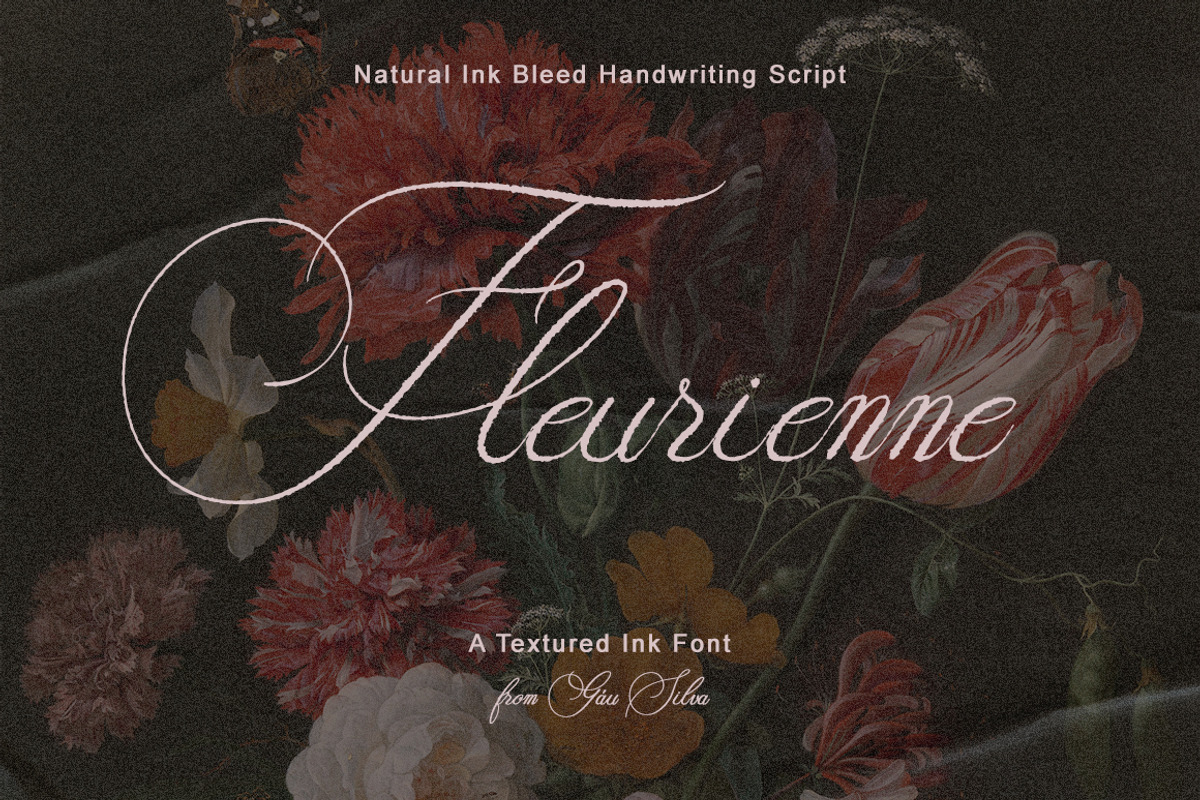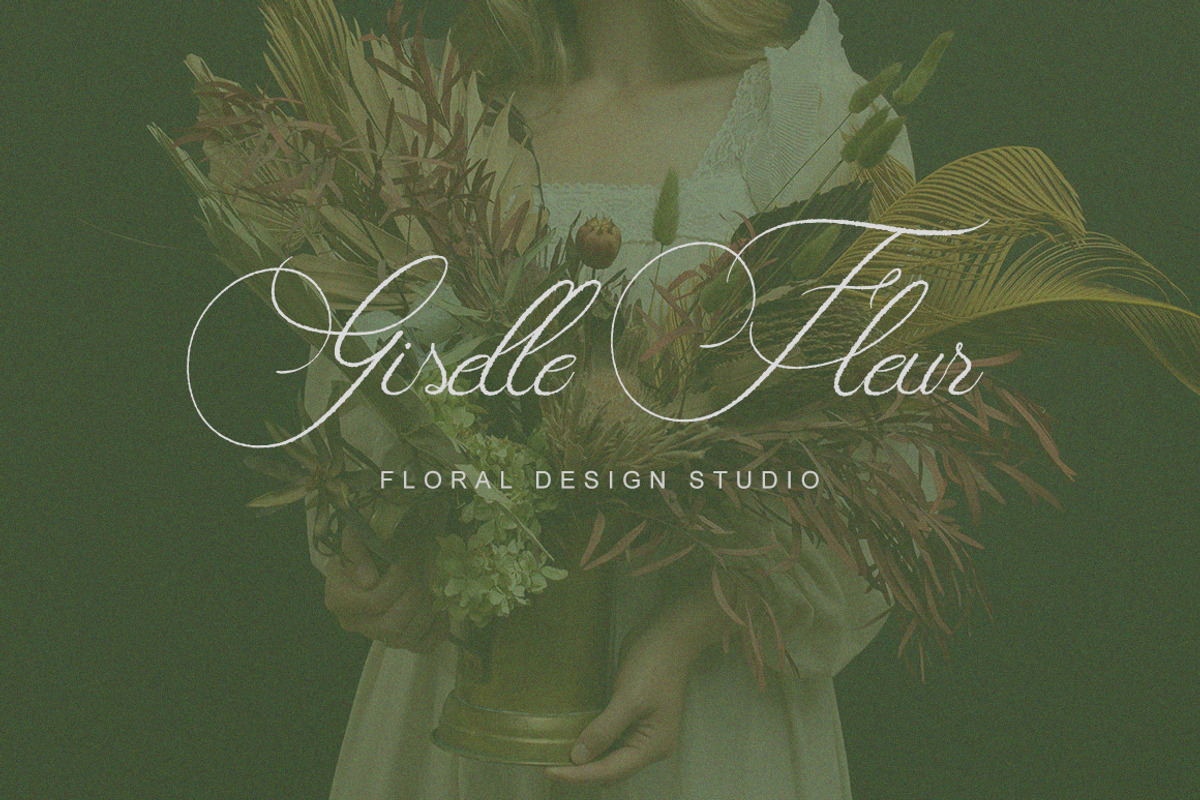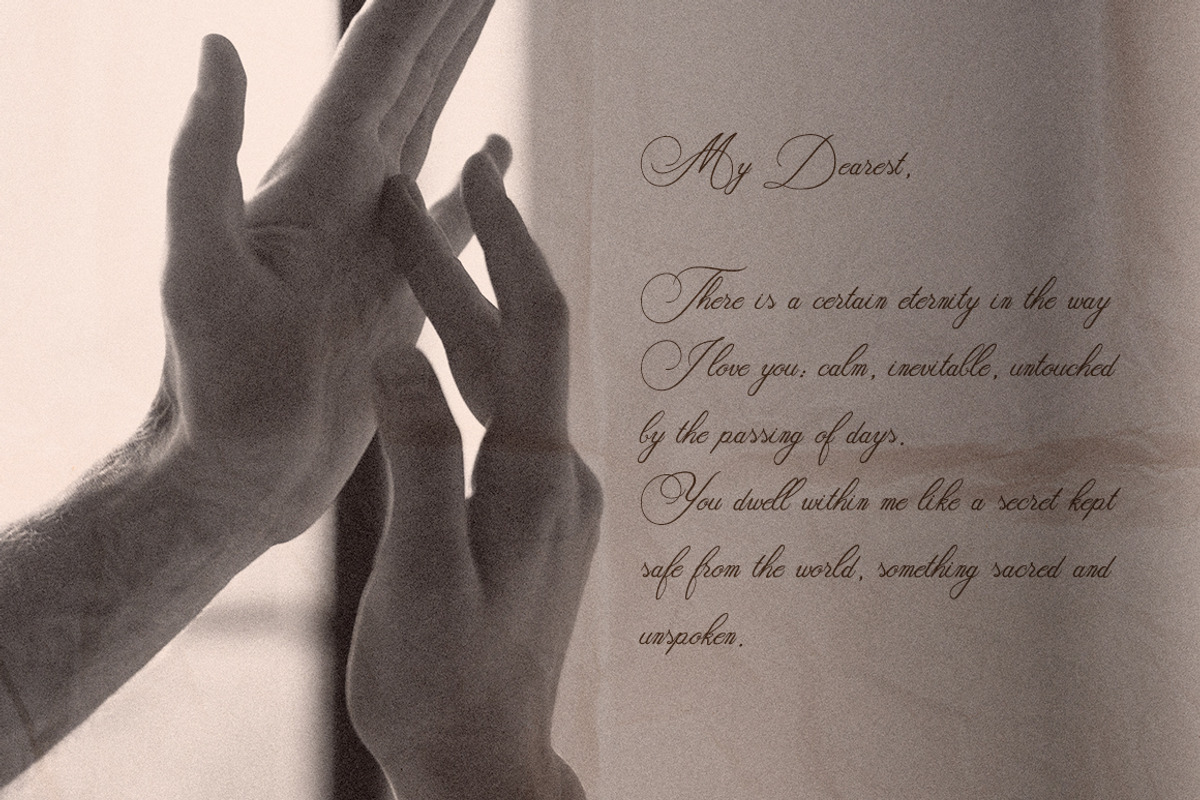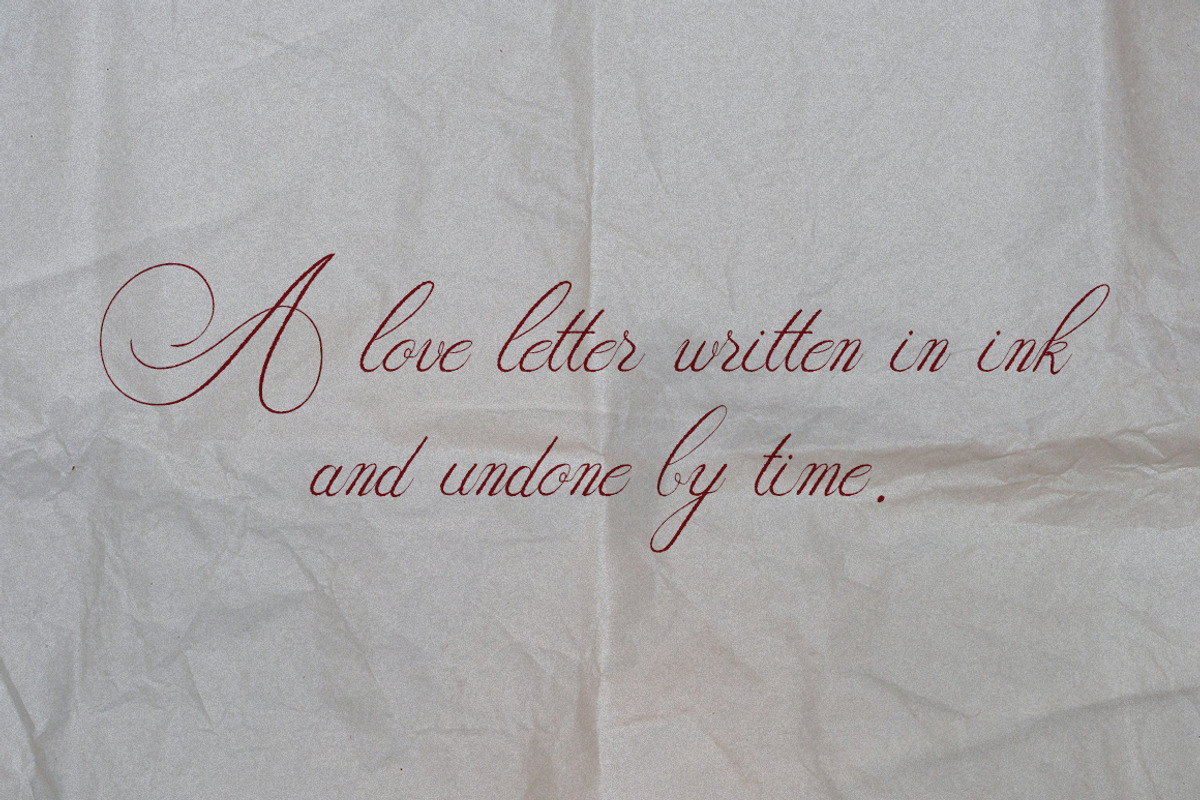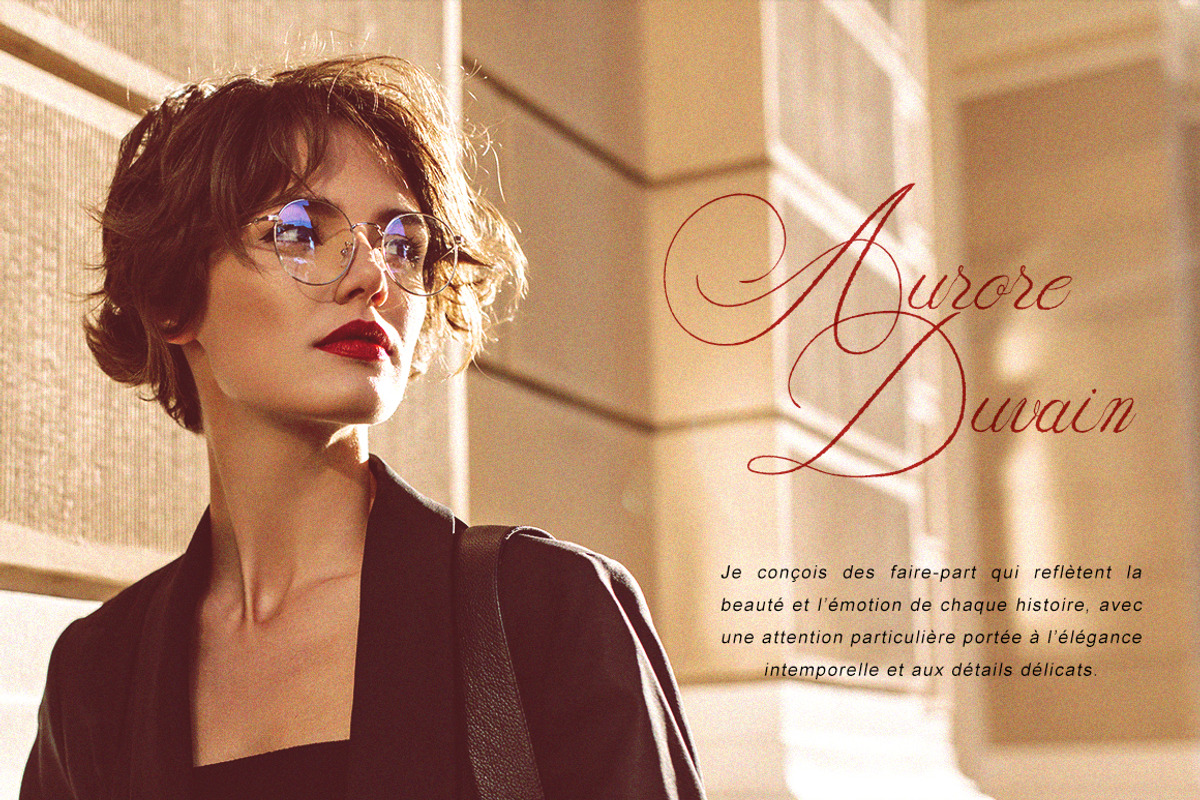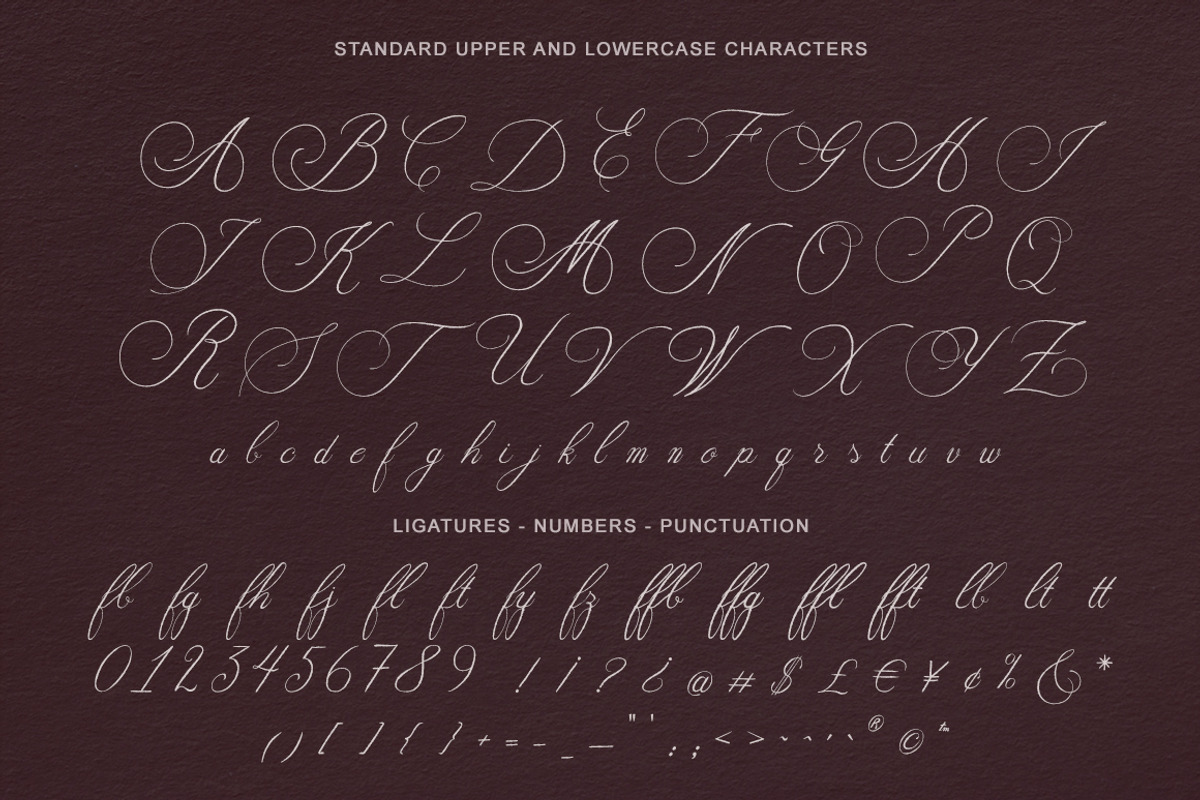
Fleurienne – Handwritten Script Font
Meet Fleurienne, an ink-bled calligraphy script with soul.
Inspired by traditional calligraphy and written by hand using an ink bleed brush, Fleurienne brings together elegance and raw texture in one expressive script font. Every letter carries the authentic imperfection of real ink on paper: refined, yet unmistakably handmade.
Perfect for wedding invitations, editorial design, luxury packaging, branding, labels, and social media content that needs a touch of artisan charm.
OpenType Features: Fleurienne includes ligatures to create natural, flowing connections between letters, making your typesetting feel effortless and alive.
- Full uppercase & lowercase character set
- Ligatures - so be sure to have them turned on in your design app.